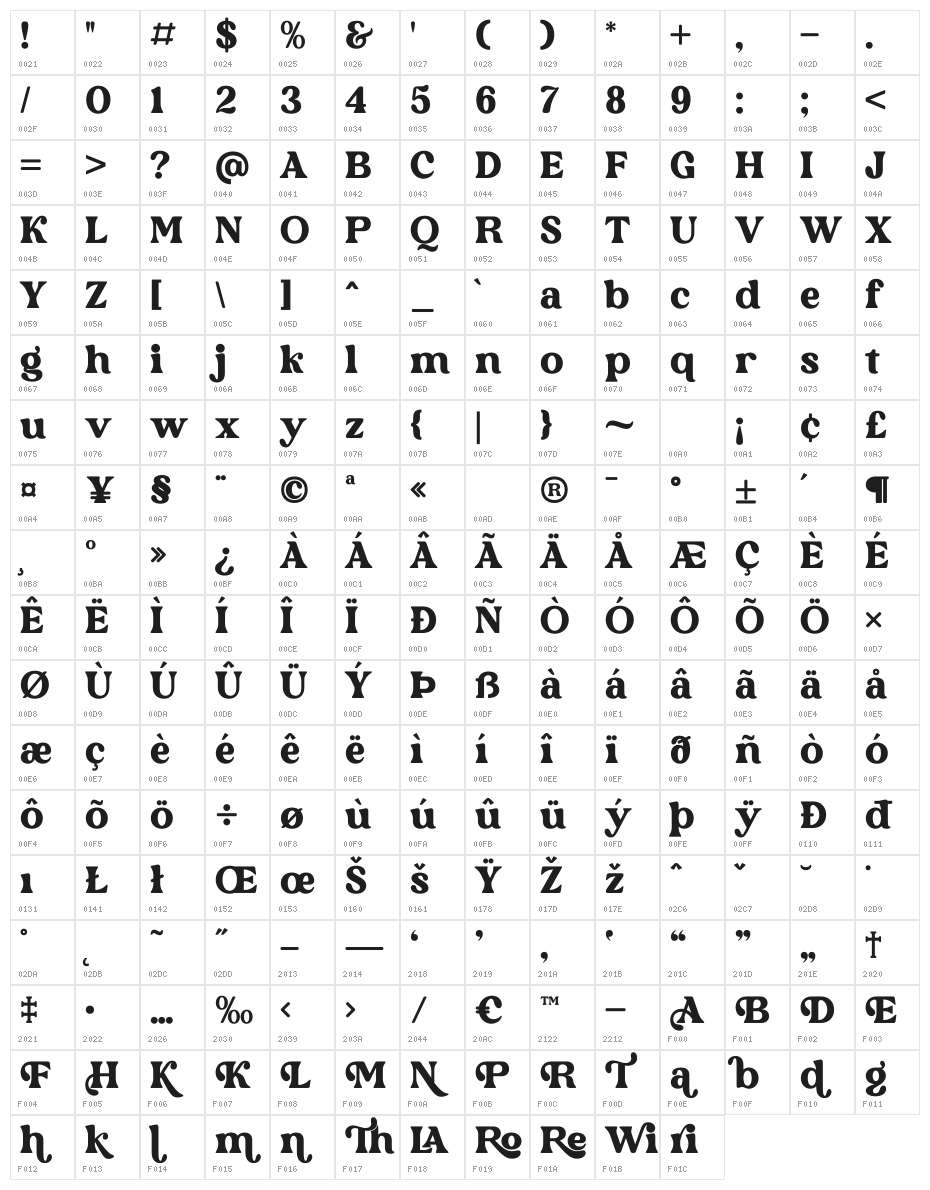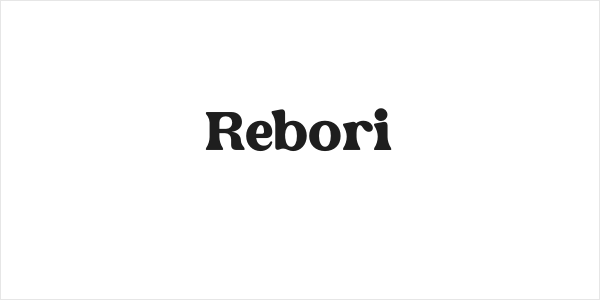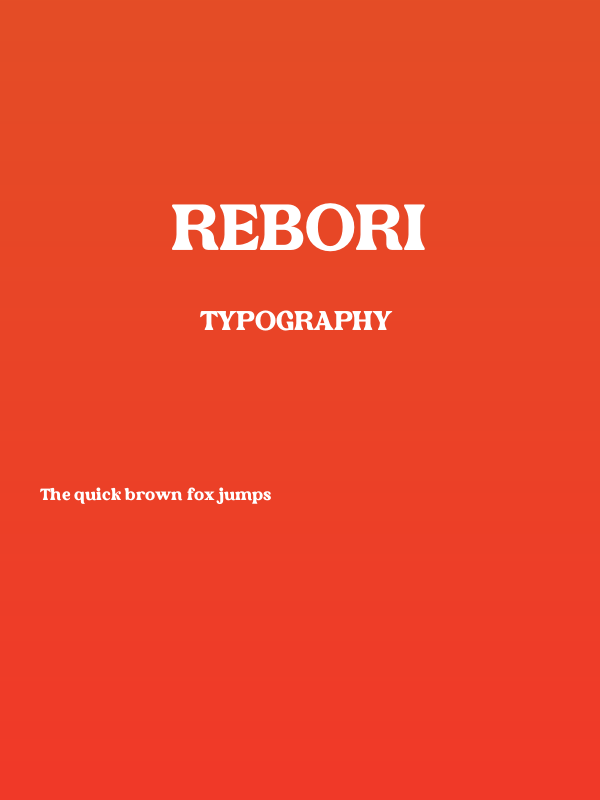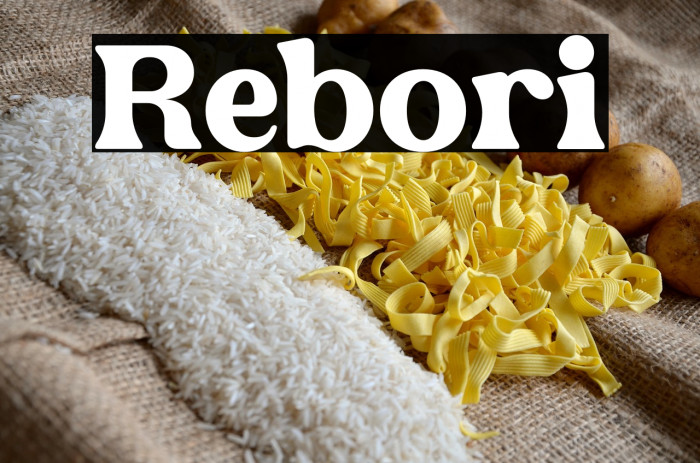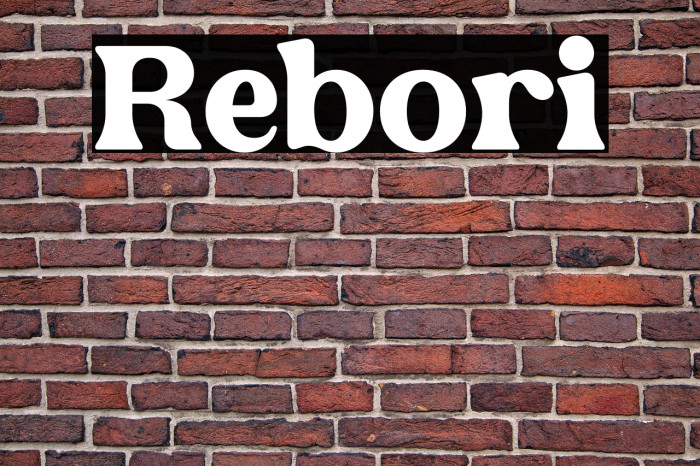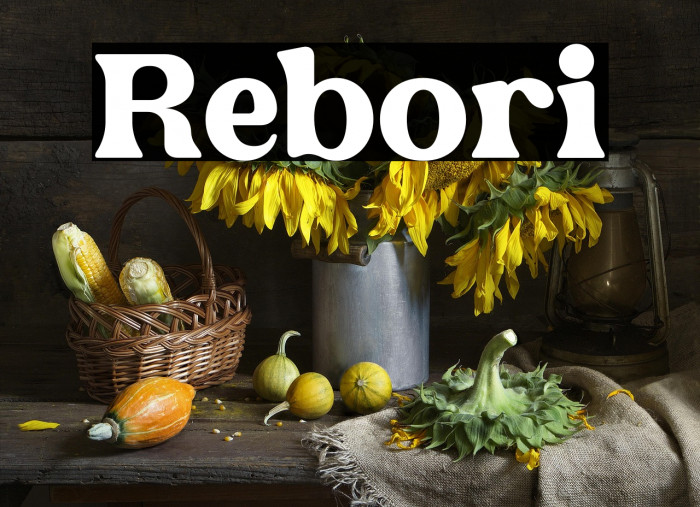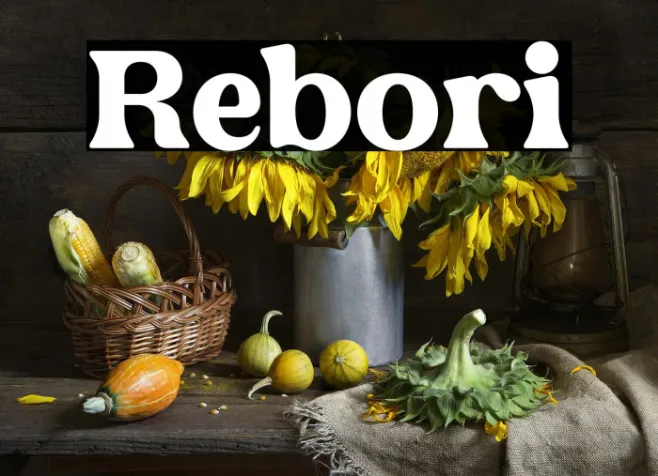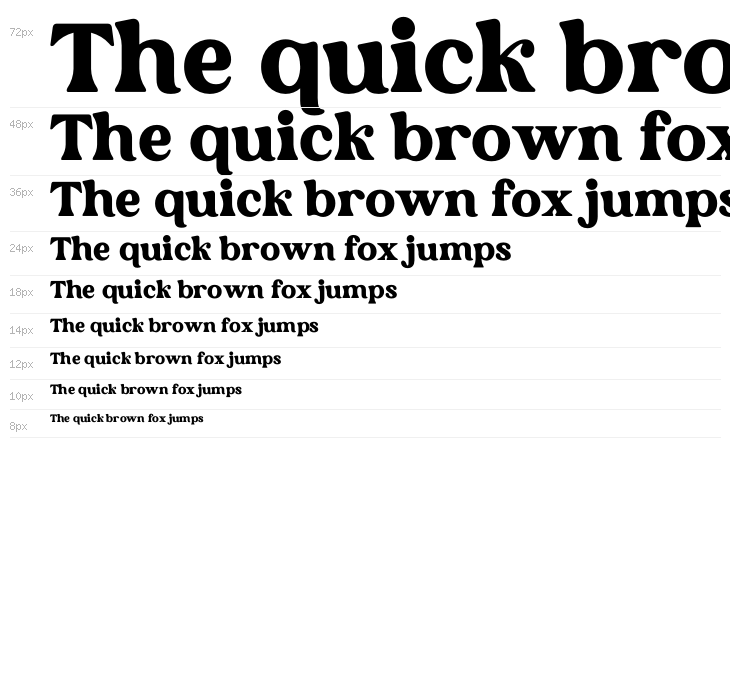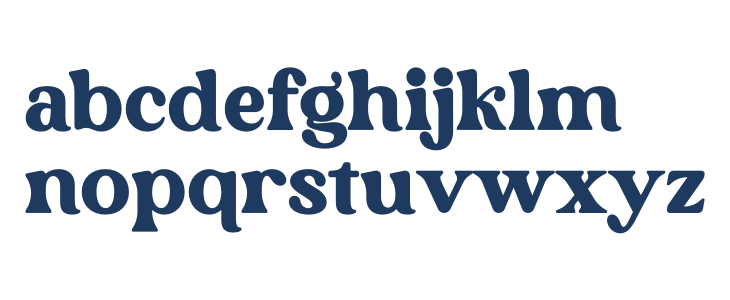
Rebori Font
Rebori Description
This font features a bold and expressive style with thick, rounded serifs that give it a strong and impactful appearance. The characters are well-defined, with a slight curvature that adds a touch of elegance and playfulness. The uppercase letters are robust and commanding, while the lowercase letters maintain a consistent weight, ensuring readability. The numerals are equally bold, matching the overall aesthetic of the font. Special characters are designed with the same attention to detail, making them stand out. This font is suitable for projects that require a strong visual presence and a touch of sophistication.
| Proposed Projects | Ideal for branding, headlines, posters, and any design needing a bold statement. |